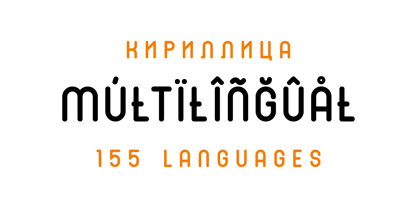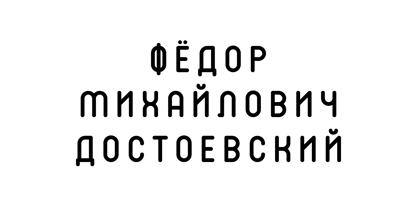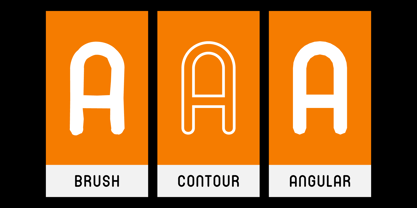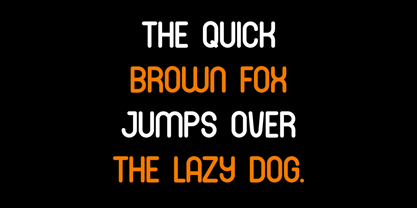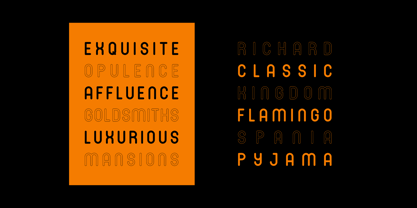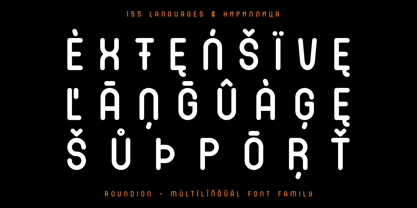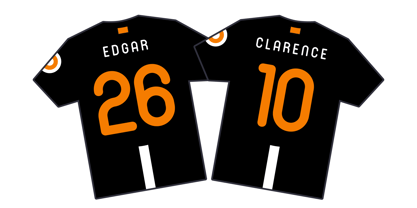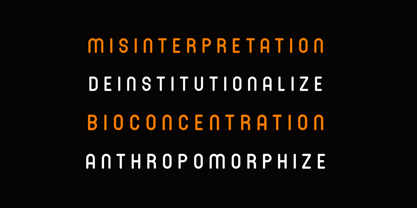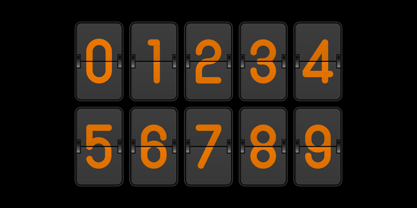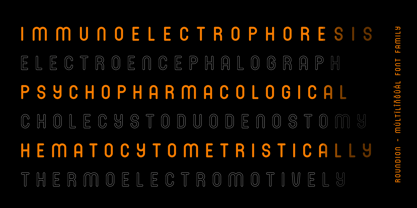
Roundion
by AlperCakici
The Roundion Font Family was designed by Alper Çakıcı and published by AlperCakici. Roundion contains 18 styles and family package options. More about this family
Roundion is a versatile rounded type family designed for clarity, personality, and wide multilingual reach. Its soft geometry and balanced proportions make it ideal for branding, packaging, editorial design, user interfaces, and display applications. The family now includes 18 styles, ranging from Regular and Italic to Angular, Brush, Contour, Edge, Inline, Outline, Rimmed, and Stroke—each with matching italics where available. This focused yet expressive range gives designers flexibility while maintaining a consistent visual structure across the entire family. Roundion supports full Cyrillic, ensuring reliable typography across languages and regions. Every style is crafted with smooth curves, open shapes, and optimized spacing for clean, readable text at both small and large sizes. Whether you're building a friendly brand identity, crafting standout headlines, or designing modern digital experiences, Roundion delivers warmth, versatility, and a distinctly rounded aesthetic.
Designers: Alper Çakıcı
Foundry: AlperCakici